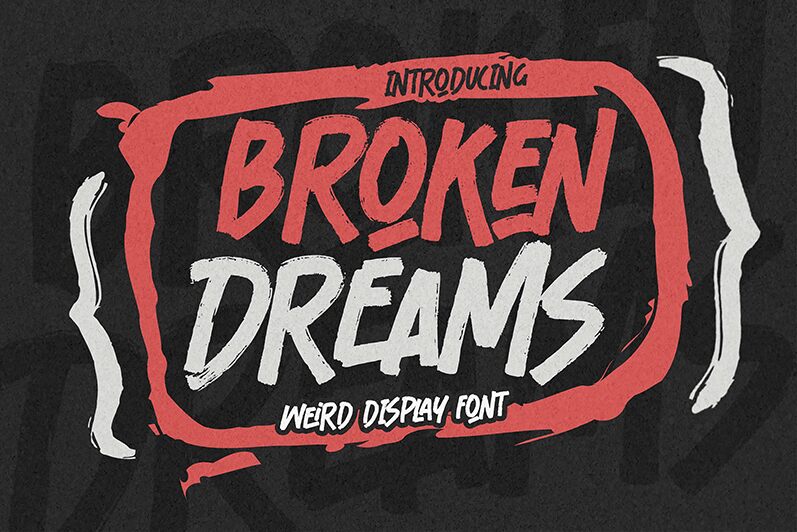
Broken Dreams by Gassstype is not just a font; it's an artistic whisper, a touch of raw emotion captured in each semi-light stroke. With its modern brush style and dramatic movement, this weird display font encapsulates the spirit of spontaneity written with a casual and swift hand. Ideal for an array of creative endeavors, Broken Dreams excels when used in labels, posters, and project designs that demand an appearance both modern and authentically cool.
Crafted to bring depth to your creations, this font shines in its ability to make words leap off the page. Whether it’s branding, packaging, or digital overlays that seek the unique flair of handwriting without sacrificing style, Broken Dreams delivers. Its textured finish echoes an authentic characteristic that mirrors the natural variations found in hand-painted letters-perfect for those aiming to evoke emotion and engagement through typography on their websites or printed materials.
Broken Dreams